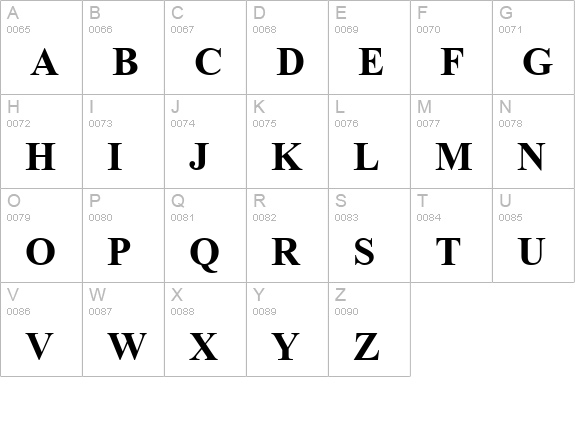
Greco Recut SSi Bold is a strong, high-contrast variant in the Greco typeface family \xE2\x80\x94 well suited to headlines, attention-grabbing titles, and strong calls-to-action.
Greco Recut SSi Bold font is a bold and striking typeface that exudes modernity and sophistication. With its clean lines and sharp edges, this font is perfect for making a bold statement in any design project. Whether you are creating a poster, logo, or website, Greco Recut SSi Bold font will add a touch of elegance and professionalism. The best part is that Greco Recut SSi Bold font is available for free download at FontsMarket.com. This means you can easily access this stylish font and use it in your projects without any cost. Don't miss out on the opportunity to enhance your designs with the impressive Greco Recut SSi Bold font – download it now and take your creations to the next level!